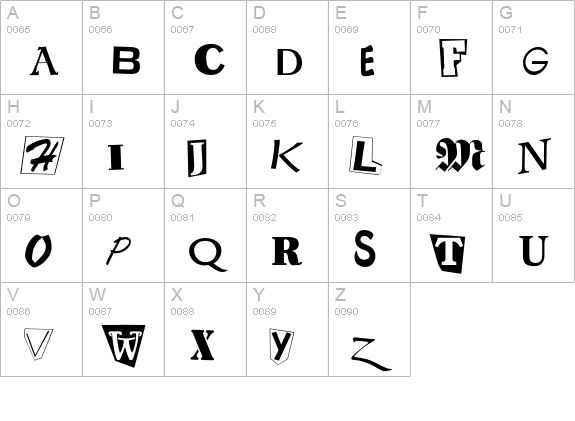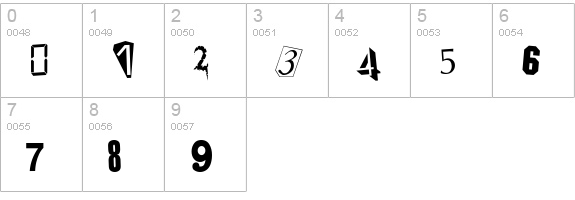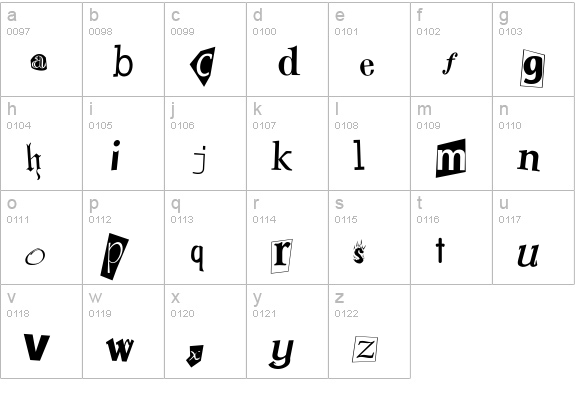
RansomNote Font Details
Introducing RansomNote font, a captivating and edgy typeface that adds a touch of mystery and intrigue to your design projects. With its bold and uneven letterforms, this font exudes a sense of rebellion and unpredictability, making it perfect for creative endeavors that require a bold statement. RansomNote font is not only visually striking but also incredibly versatile. Whether you're working on a poster, logo, or packaging design, this font will instantly grab attention and leave a lasting impression. Its unique and irregular shapes give your text a handcrafted feel, making it stand out from the crowd. But what makes RansomNote font even more special is that it is absolutely free to download! Yes, you read that right, this extraordinary font is freely available for designers and creatives to use and experiment with. Now, you can unleash your creativity without worrying about any additional costs or restrictions. To get your hands on this captivating font, simply head over to FontsMarket.com, a trusted source for high-quality fonts. There, you can easily browse and download RansomNote font, along with a vast collection of other exceptional typefaces. FontsMarket.com ensures a seamless and hassle-free experience, allowing you to focus on what truly matters – bringing your ideas to life. So, if you're ready to break free from the ordinary and make a bold statement with your designs, RansomNote font is the perfect choice. Download it today and let your creativity run wild!